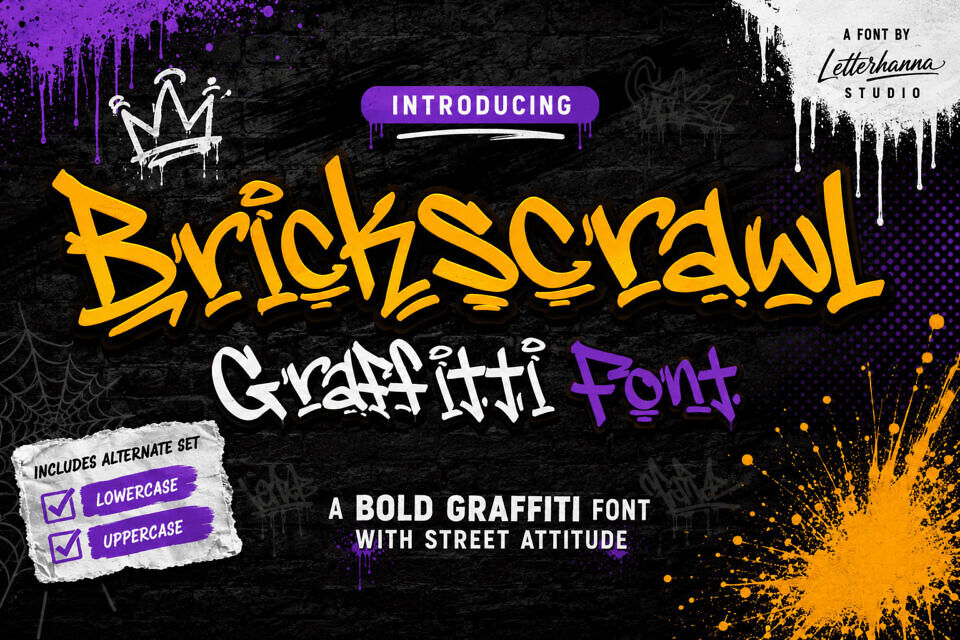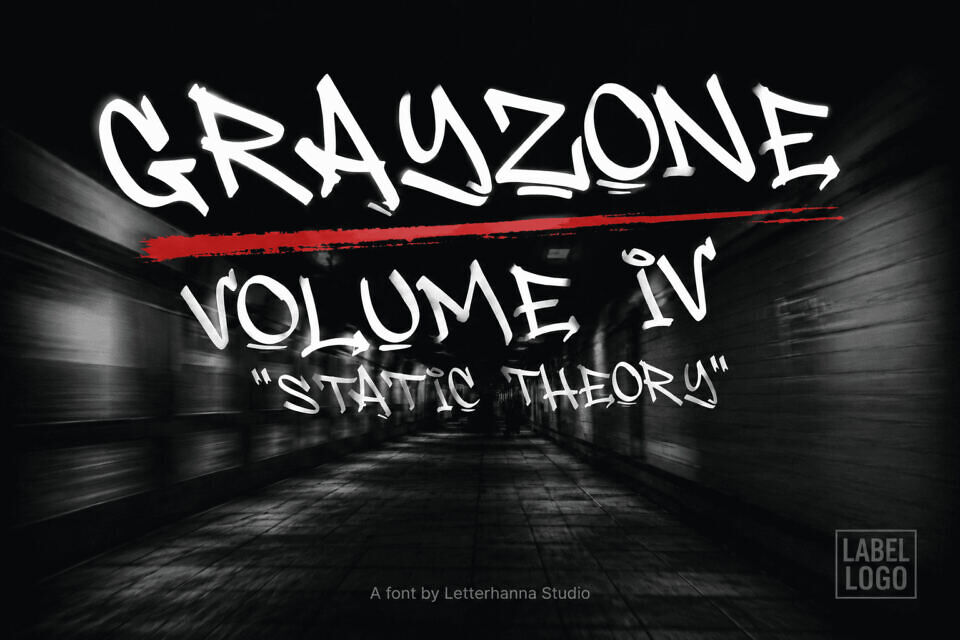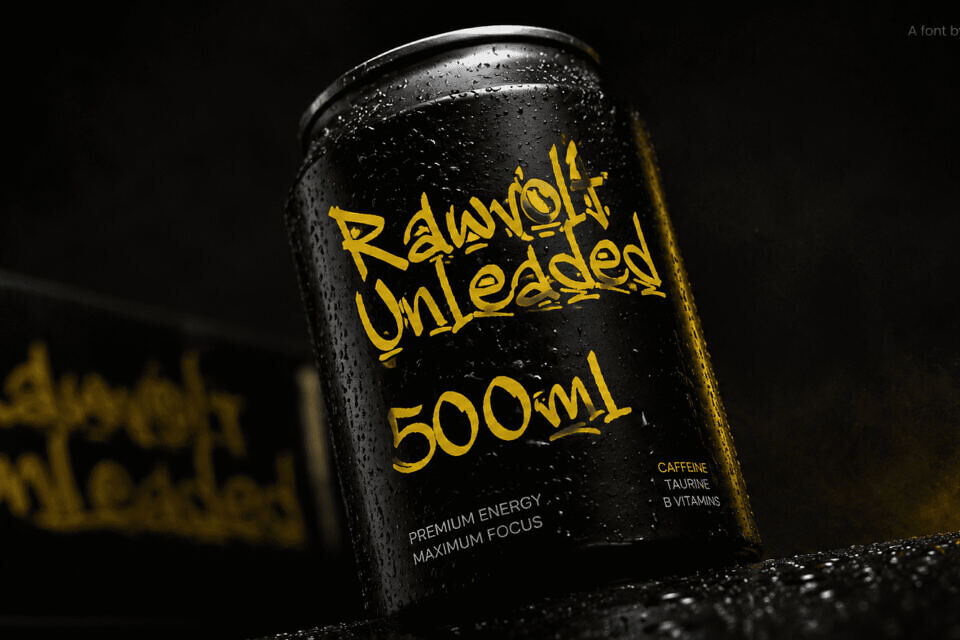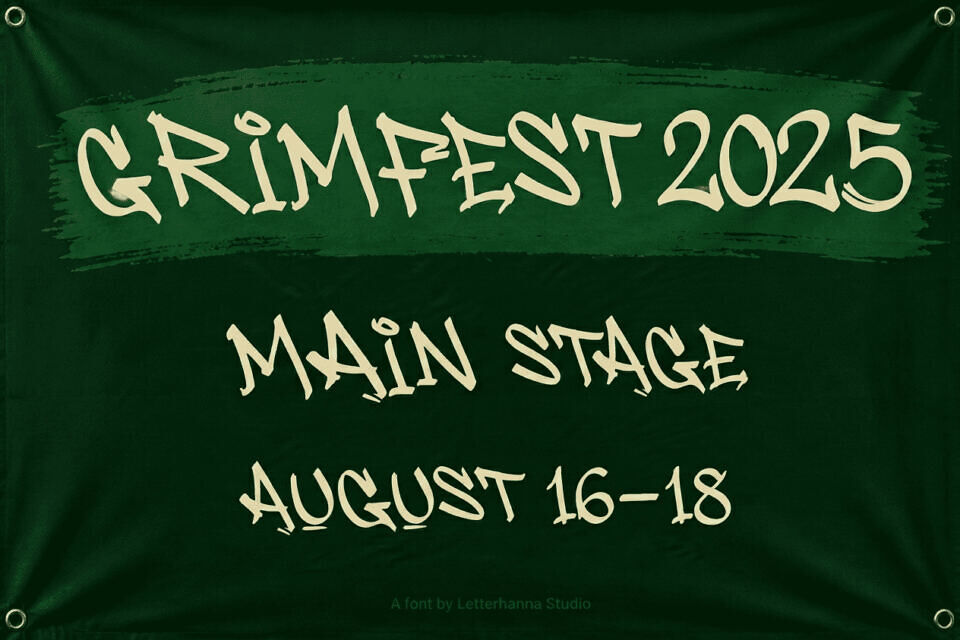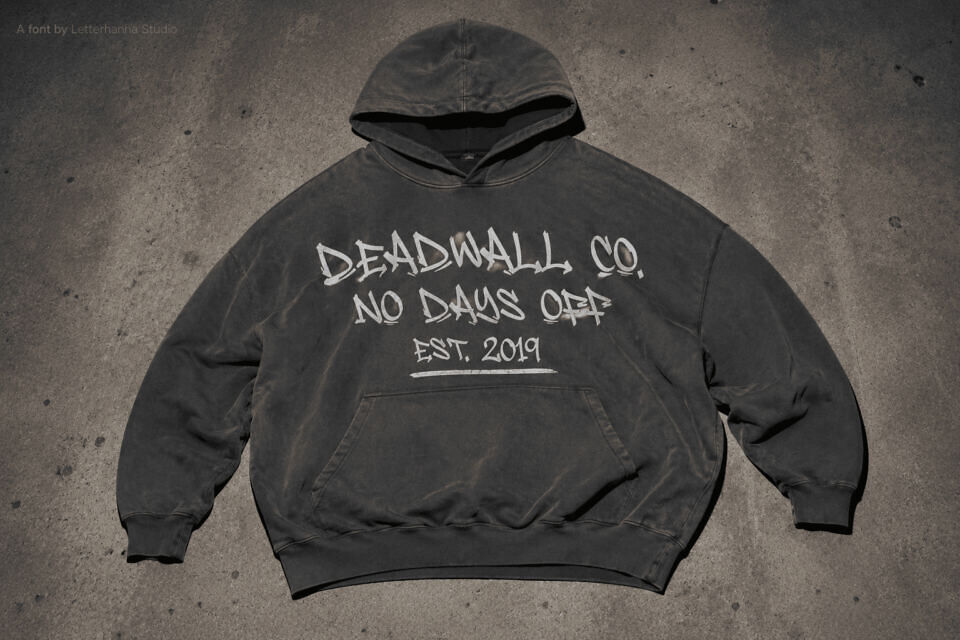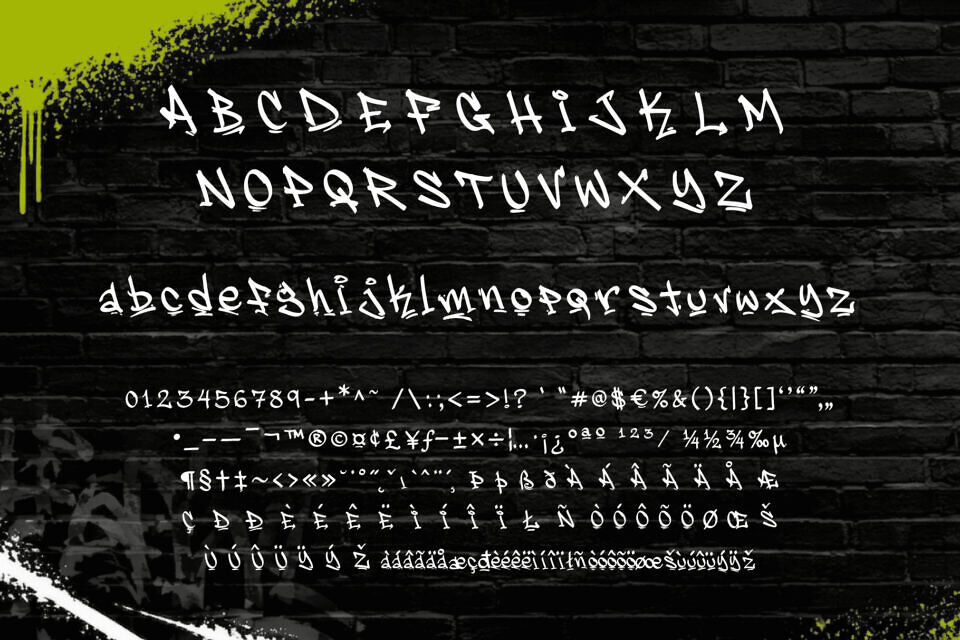
The streets have long been a canvas for artistic expression. Before formal design, artists used urban spaces to convey messages with paint and creativity. This raw energy inspired Brickscrawl, a font that embodies the spirit of creative defiance. Imperfect and authentic, it’s perfect for designers seeking a typeface with attitude, suitable for posters, merchandise, and more, and pairs well with gritty textures or clean backgrounds.